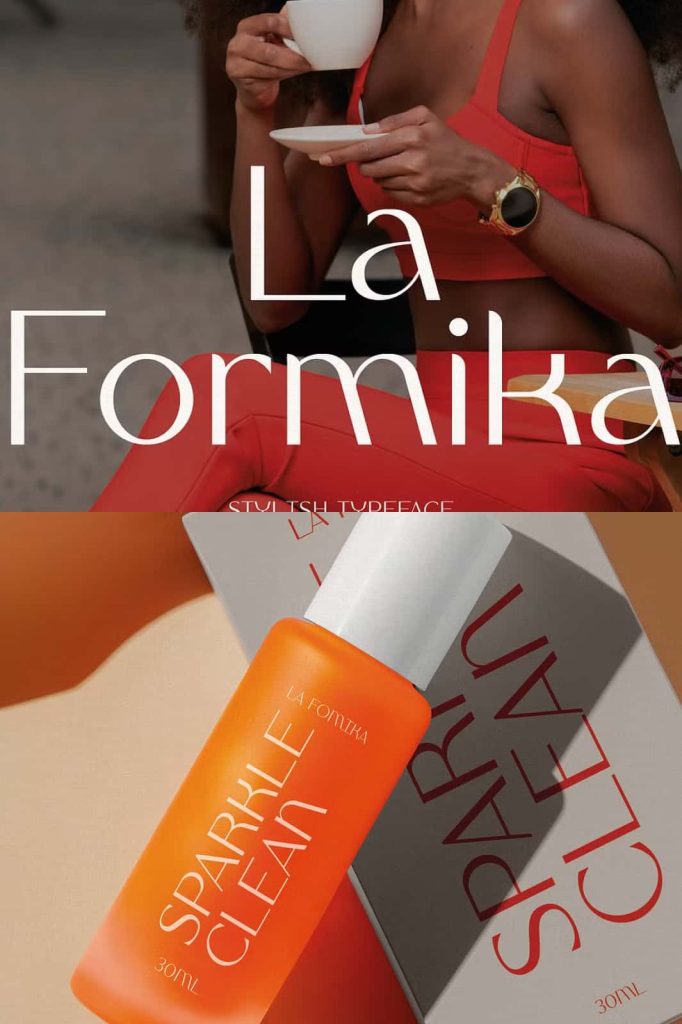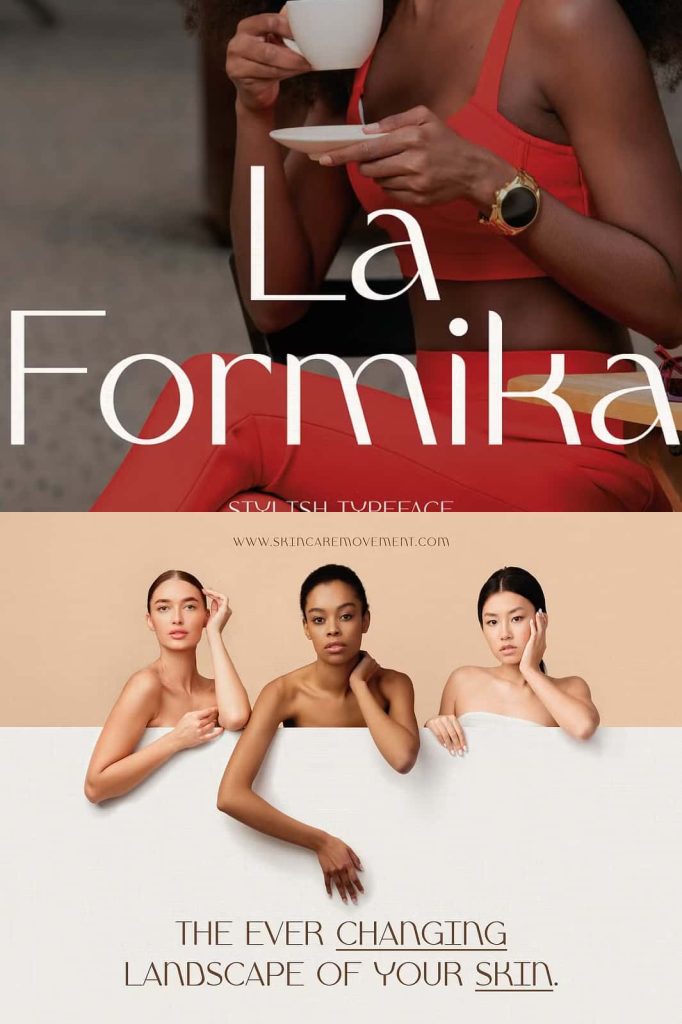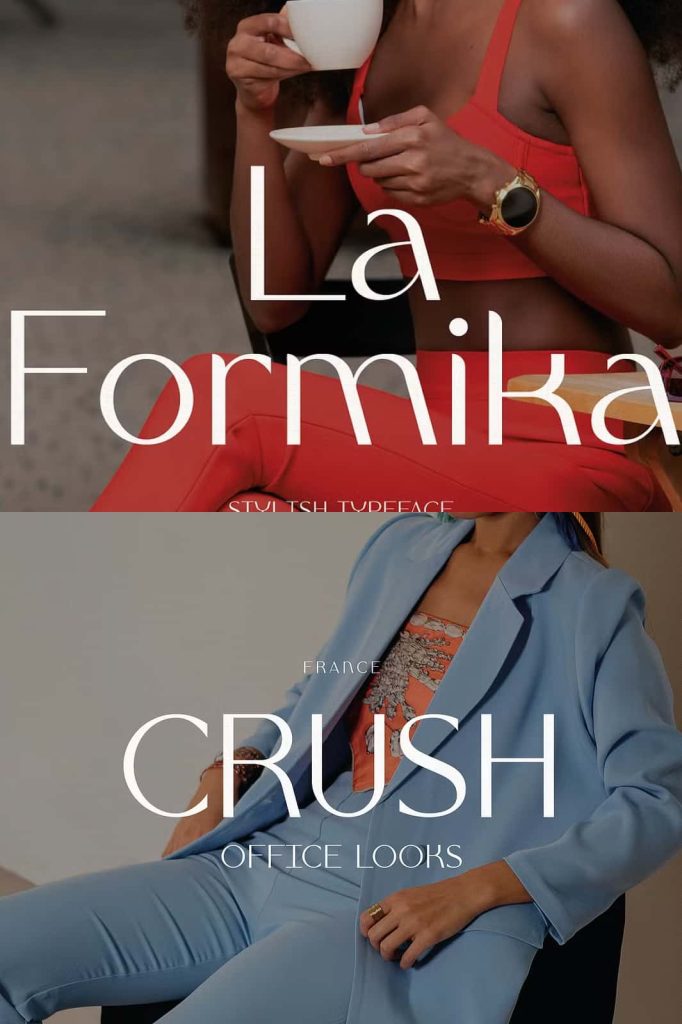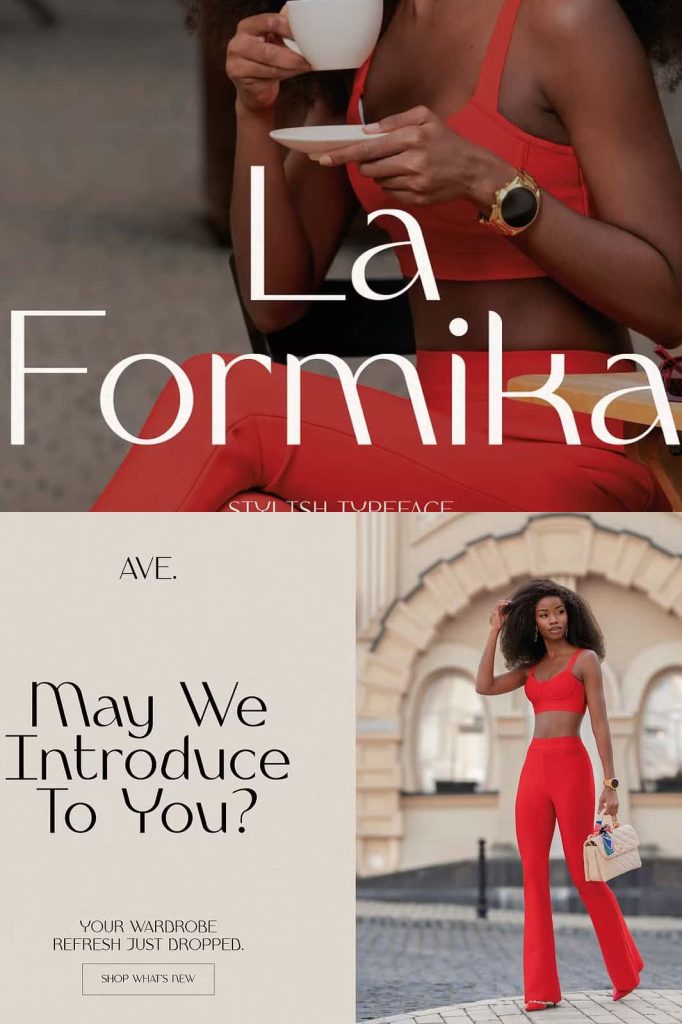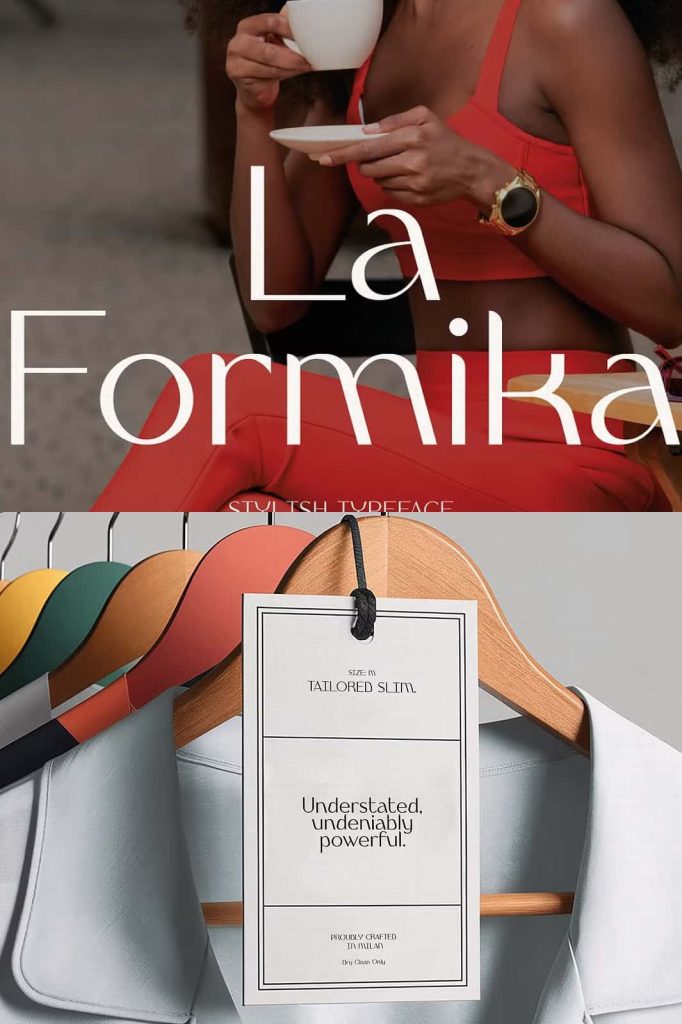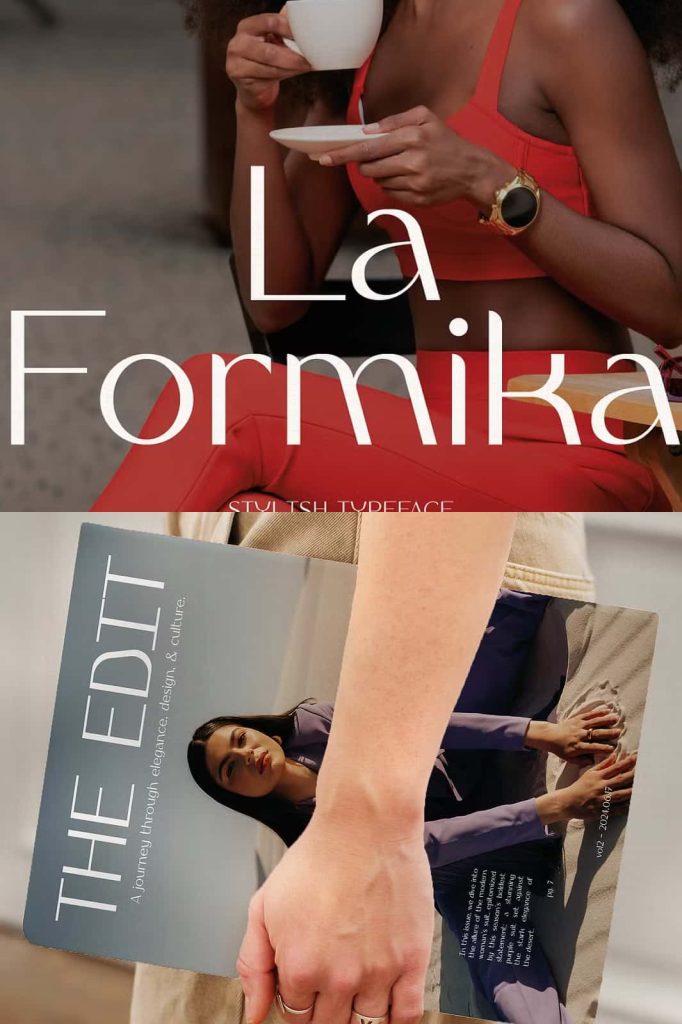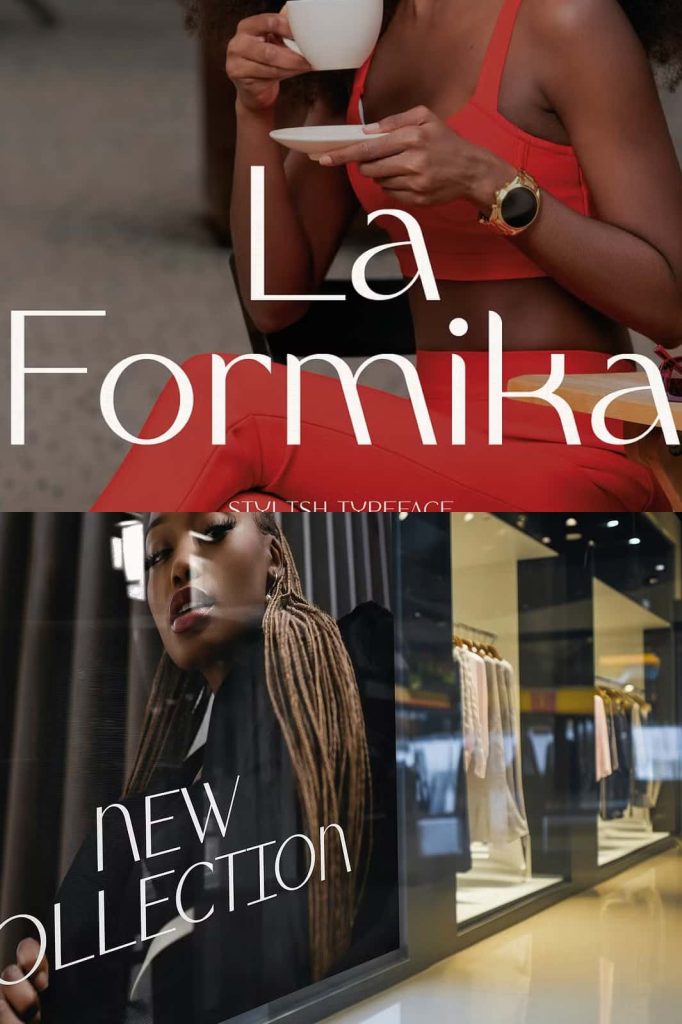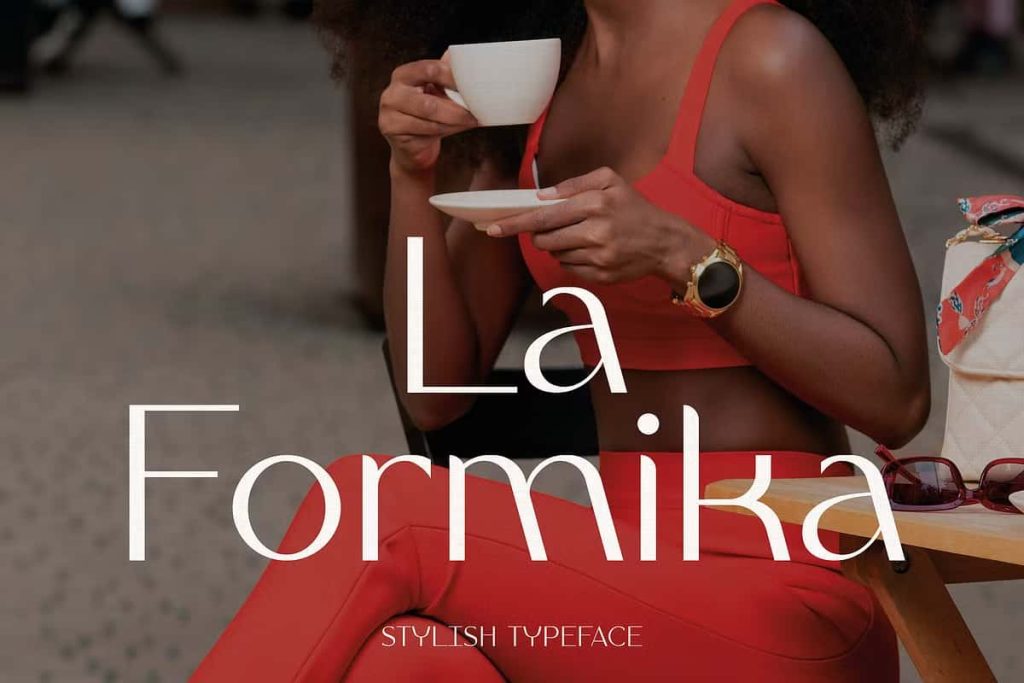
Introducing La Formika – the epitome of elegance and sophistication in a typeface. Designed for graphic designers who work with high-end brands, La Formika exudes luxury, making it the perfect choice for fashion, beauty, cosmetics, and premium projects. With its refined lines, graceful curves, and polished style, this typeface elevates any design, infusing it with a sense of class and exclusivity.